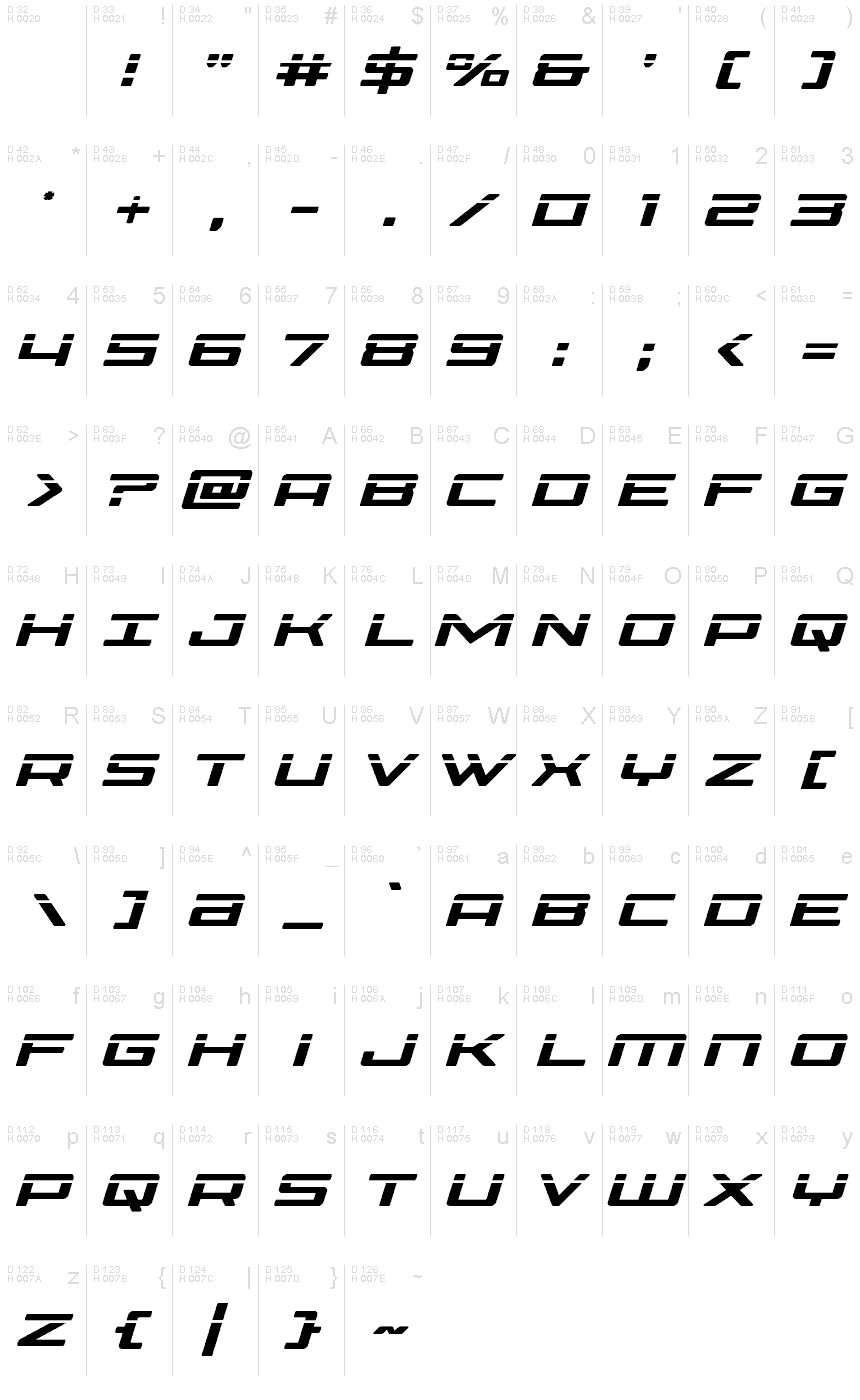
Phoenicia Laser Italic
Phoenicia Laser Italic is a captivating display font that exudes a futuristic, technological flair. Designed by Daniel Zadorozny, this expanded typeface boasts sharp, geometric letterforms that evoke a sense of sleek modernity.
The italic slant and laser-cut aesthetic lend a dynamic, forward-thinking feel, making Phoenicia Laser Italic an excellent choice for branding, logos, and digital interfaces. Its bold, impactful presence commands attention, making it well-suited for headlines, posters, and other eye-catching design applications.
With its distinct techno-inspired style, Phoenicia Laser Italic offers a unique typographic solution for projects seeking to convey a sense of innovation and cutting-edge design.
The italic slant and laser-cut aesthetic lend a dynamic, forward-thinking feel, making Phoenicia Laser Italic an excellent choice for branding, logos, and digital interfaces. Its bold, impactful presence commands attention, making it well-suited for headlines, posters, and other eye-catching design applications.
With its distinct techno-inspired style, Phoenicia Laser Italic offers a unique typographic solution for projects seeking to convey a sense of innovation and cutting-edge design.